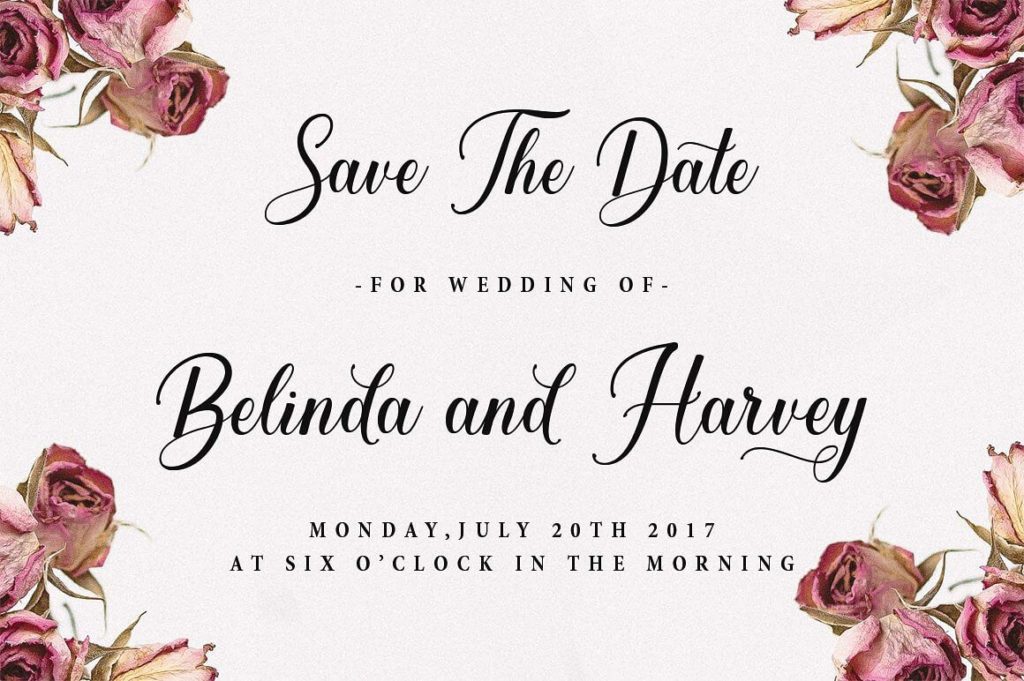
Ainsley script font family is a present-day calligraphy font. Ainsley a beautiful for logotype, internet site header, fashion design, wedding card layout and any more. It comes in elegant style, it also comes as an Ainsley every day, medium, and ambitious. It consists of a complete set of decrease & uppercase letters, a massive variety of punctuation, numerals, and multilingual help.
This is a cutting-edge calligraphy font. The script comes in stylish style for designers. It additionally comes as a regular, medium, and formidable.